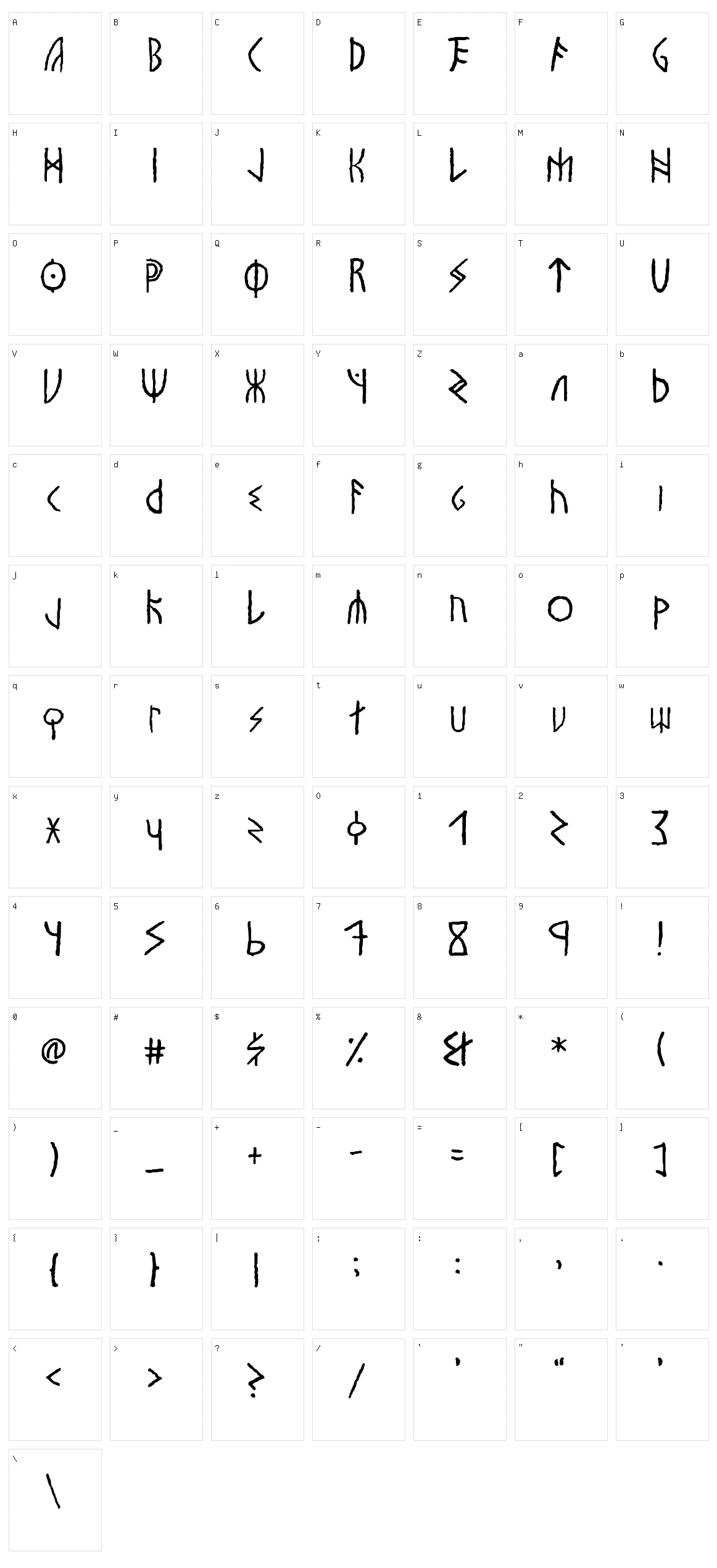
The free font Vinland is carefully designed by Bruno Laurenzano, showcasing a thoughtful balance of creativity and usability and belongs to the Gothic font family. When you download the ZIP file, it contains only 41.65 KB of font files, making it lightweight and quick to download. Please review the license details below to understand permitted usage and distribution rights. If license information is not available, we recommend using this font for personal projects only or contacting the author directly for commercial usage permissions.